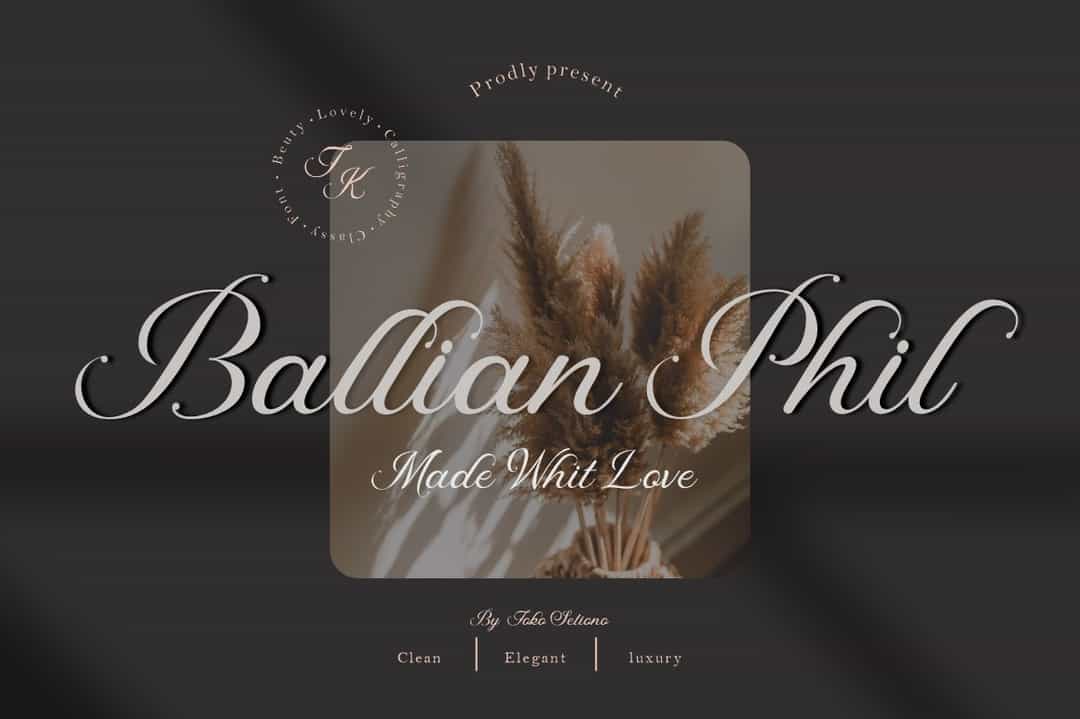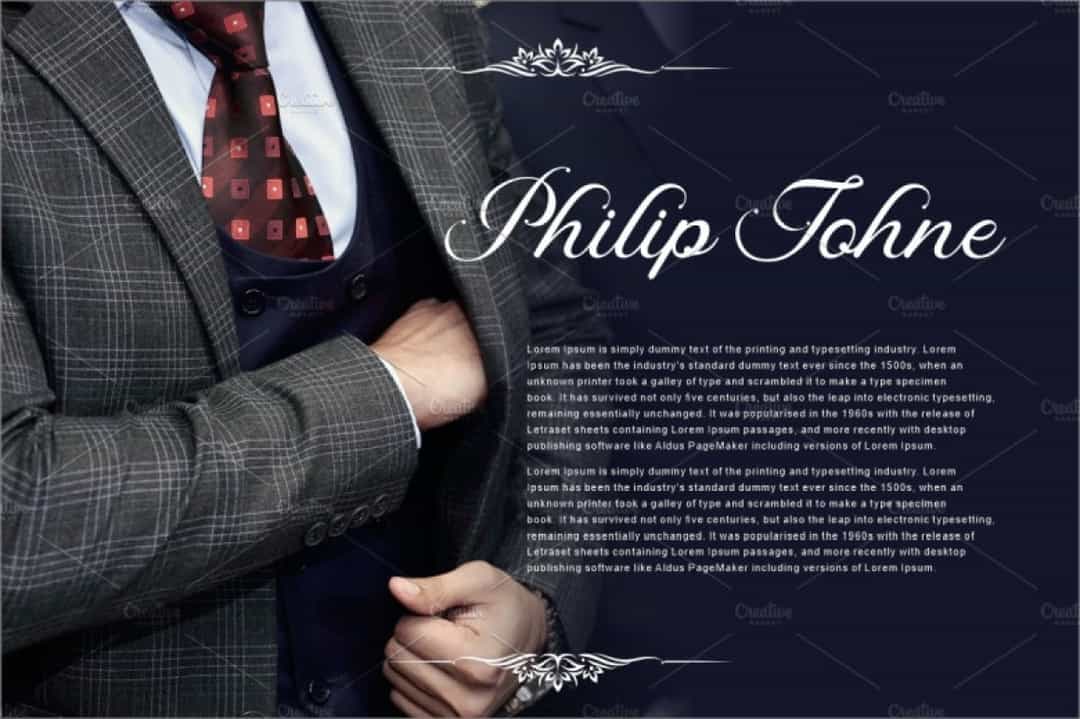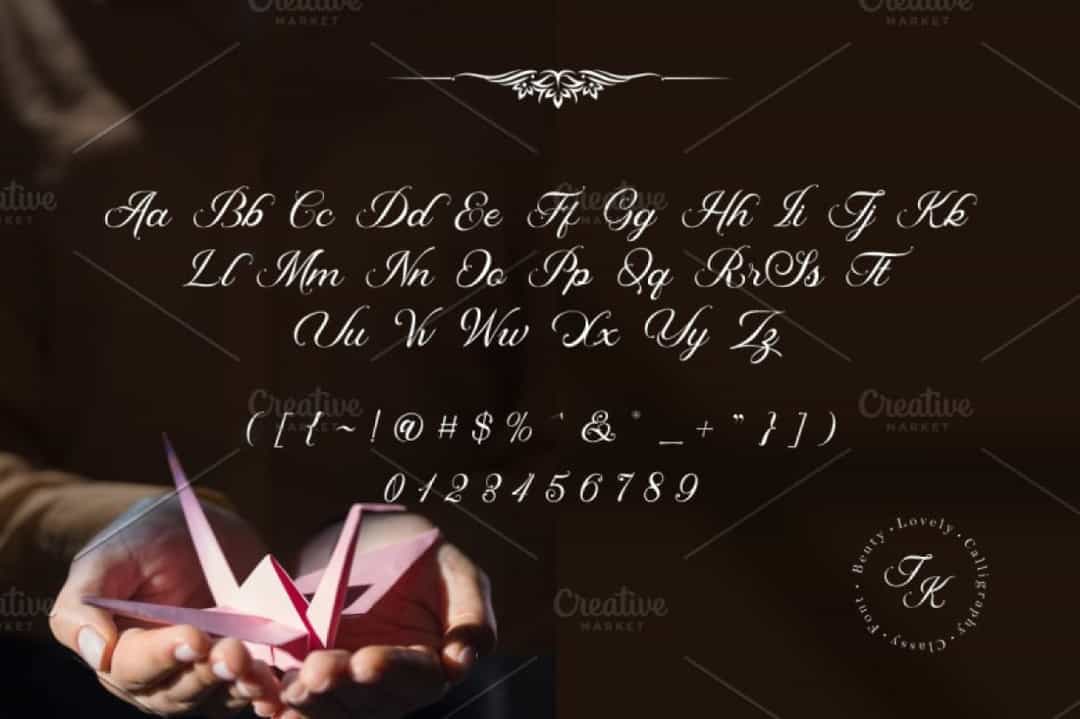
Ballian Phill is an exquisite script typeface inspired by elegant handwriting and smooth curves to bring out the sophistication in your designs. Ideal for jewelry brand signatures or logos as well as invitation cards, its features include Uppercase-Lowercase-Numeric Punctuation Ligature Multilingual Support.